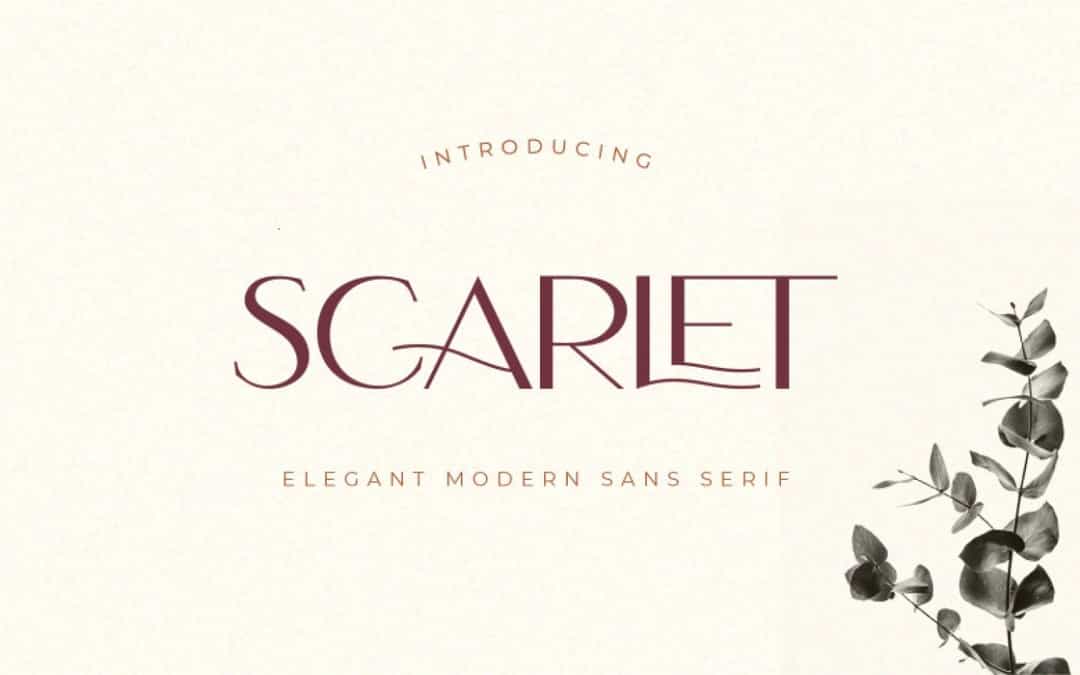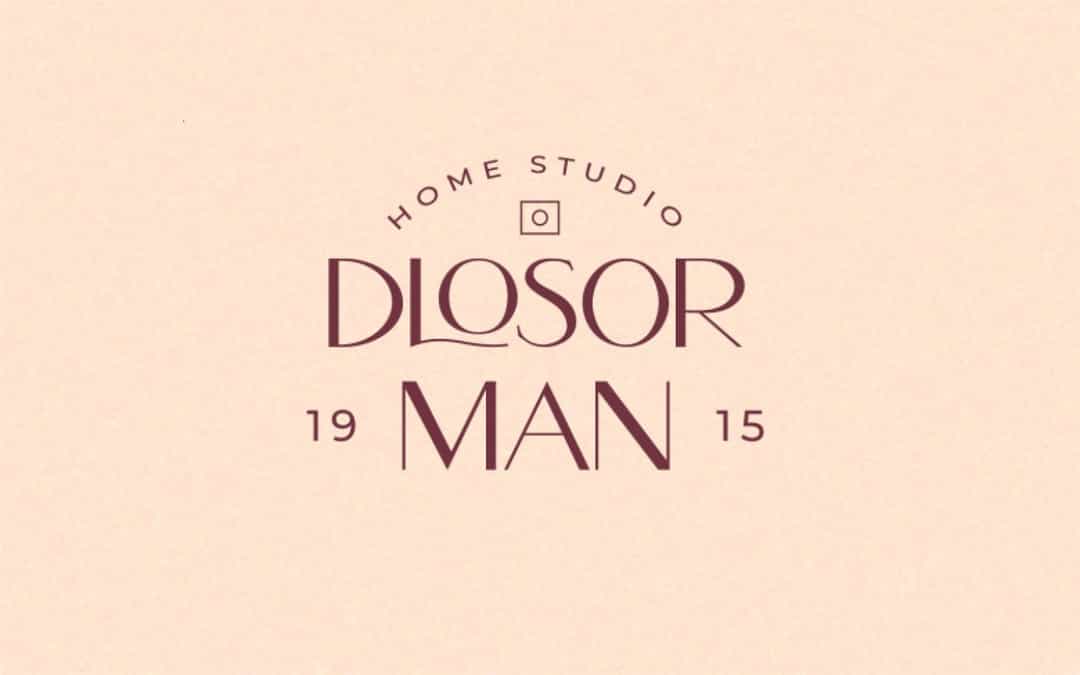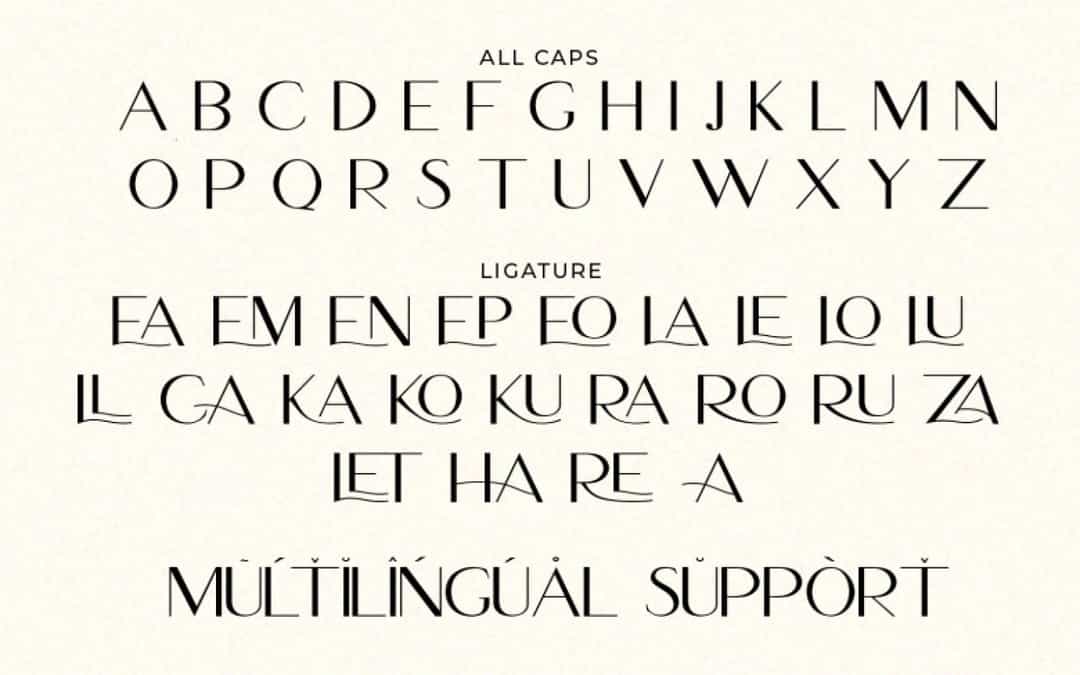
Galatamen designed Scarlet as an elegant sans serif font with an eye-catching appearance and can be used for creating logos, brandings, invitations, wedding designs, stationery pieces and social media posts – among others.